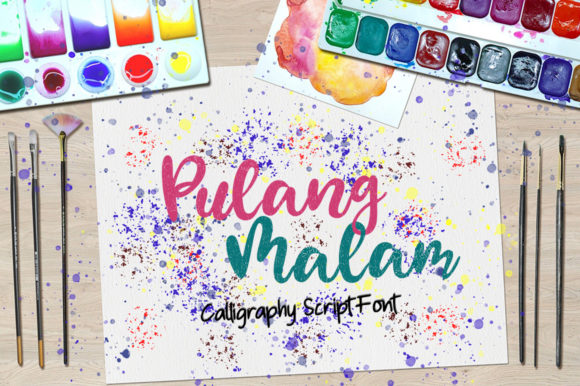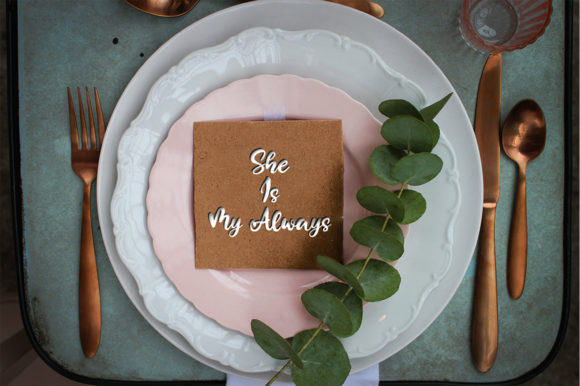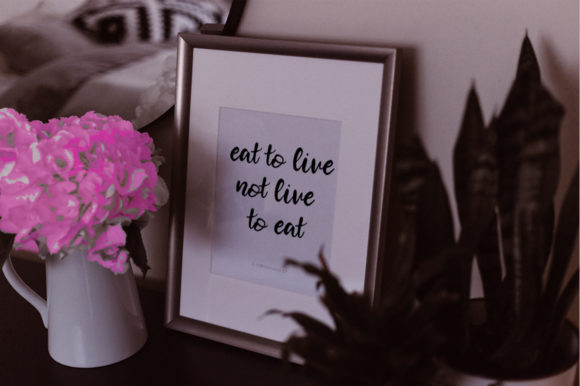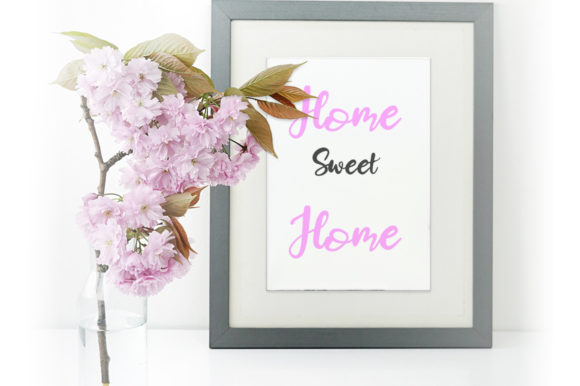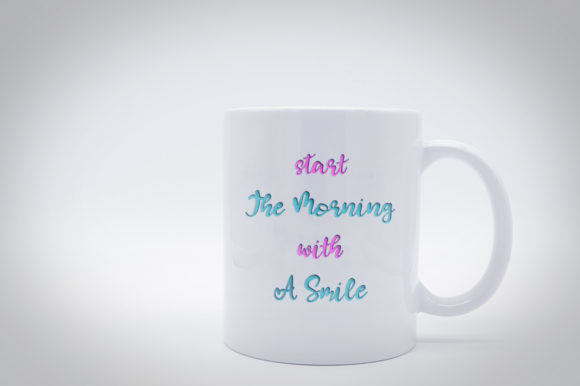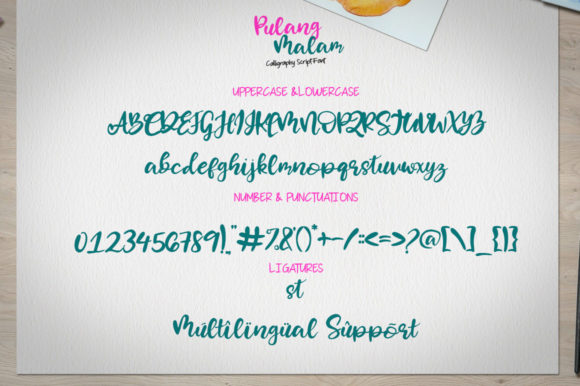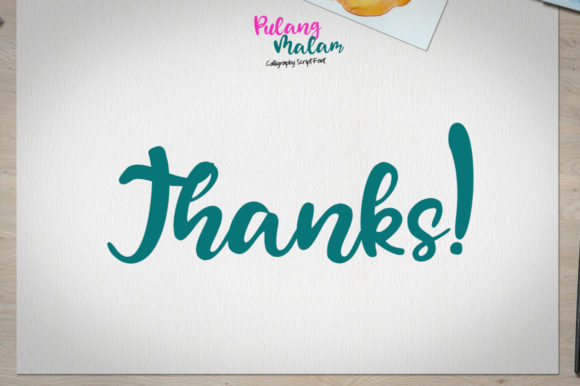
Pulang Malam Font
About Pulang Malam Font
Pulang Malam simplifies elegance into one truly outstanding script font. It maintains its classy calligraphic influences while feeling contemporary and fresh.